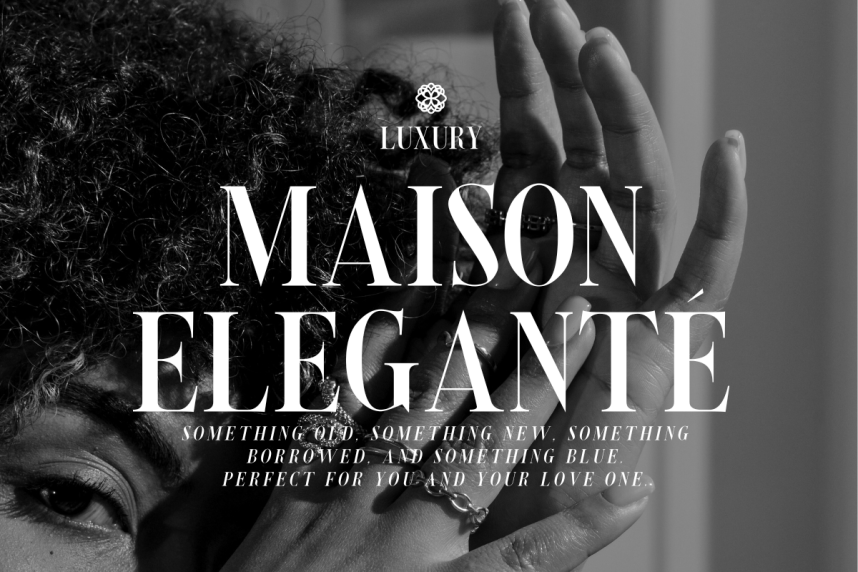
Shorelot – Timeless Serif Font Family
Shorelot – Timeless Serif Font Family is a sophisticated serif font meticulously designed to bring professionalism and refinement to your projects. As an all-caps typeface, Shorelot seamlessly combines classic elegance with modern adaptability, making it an essential tool for professionals aiming to achieve impactful results.